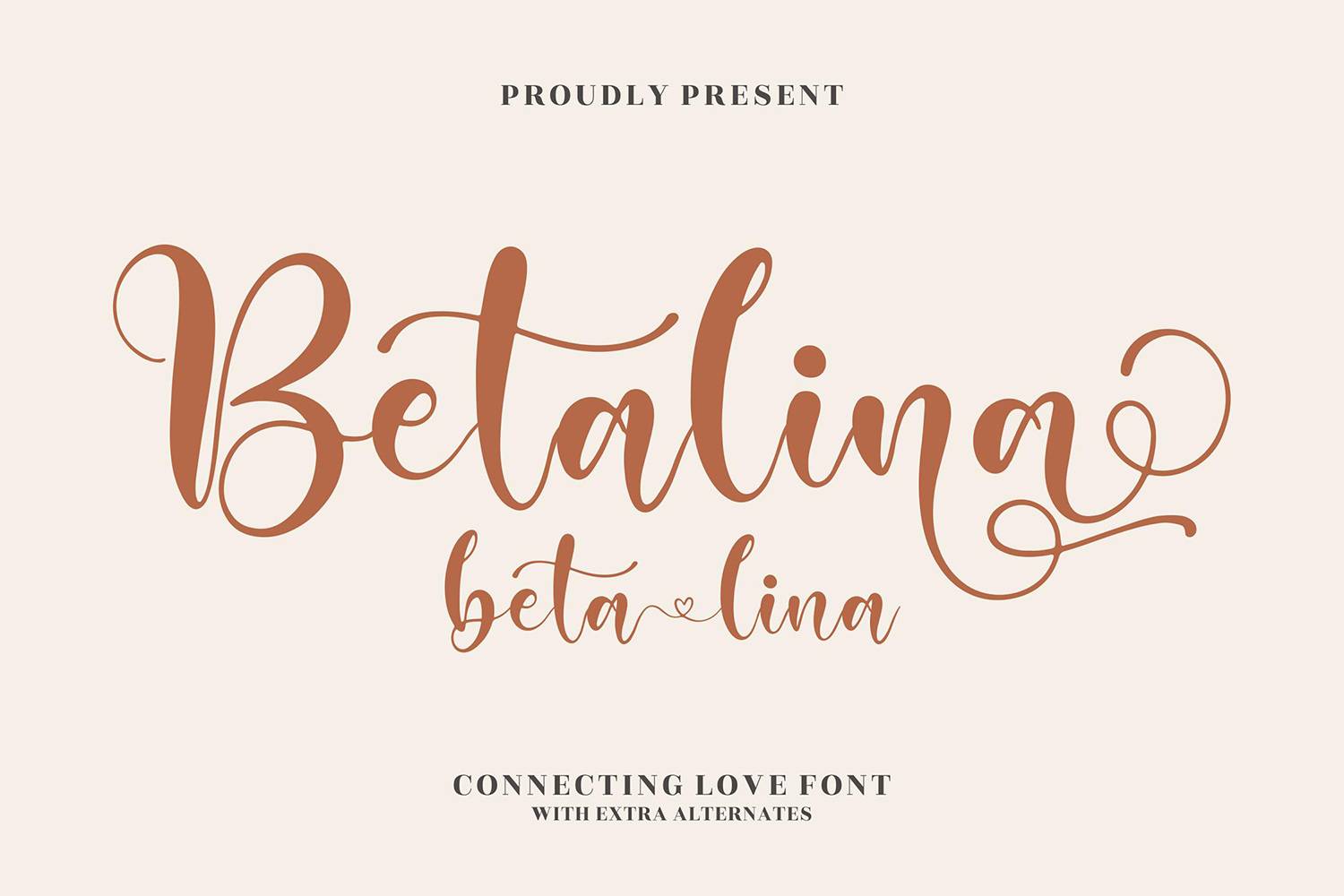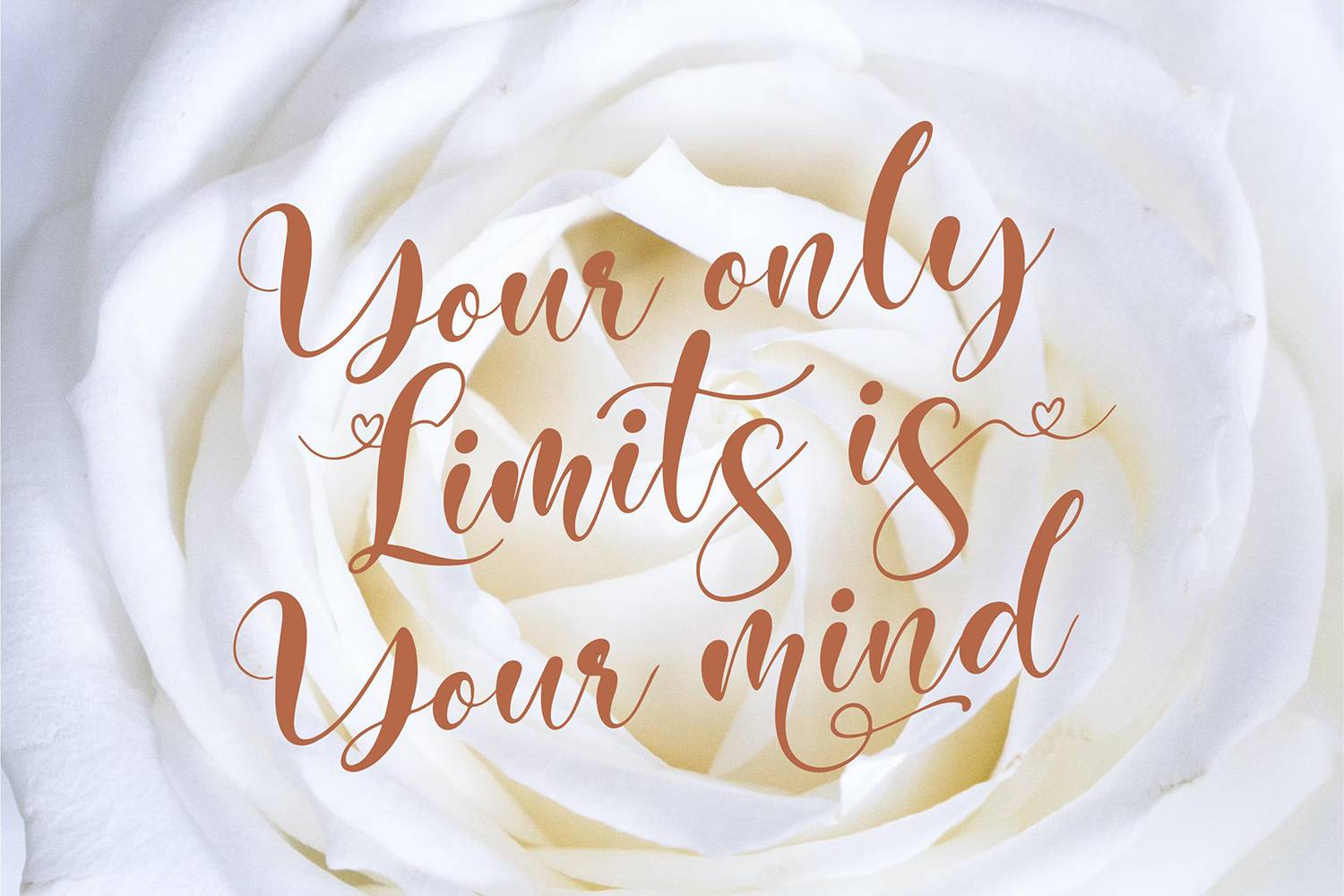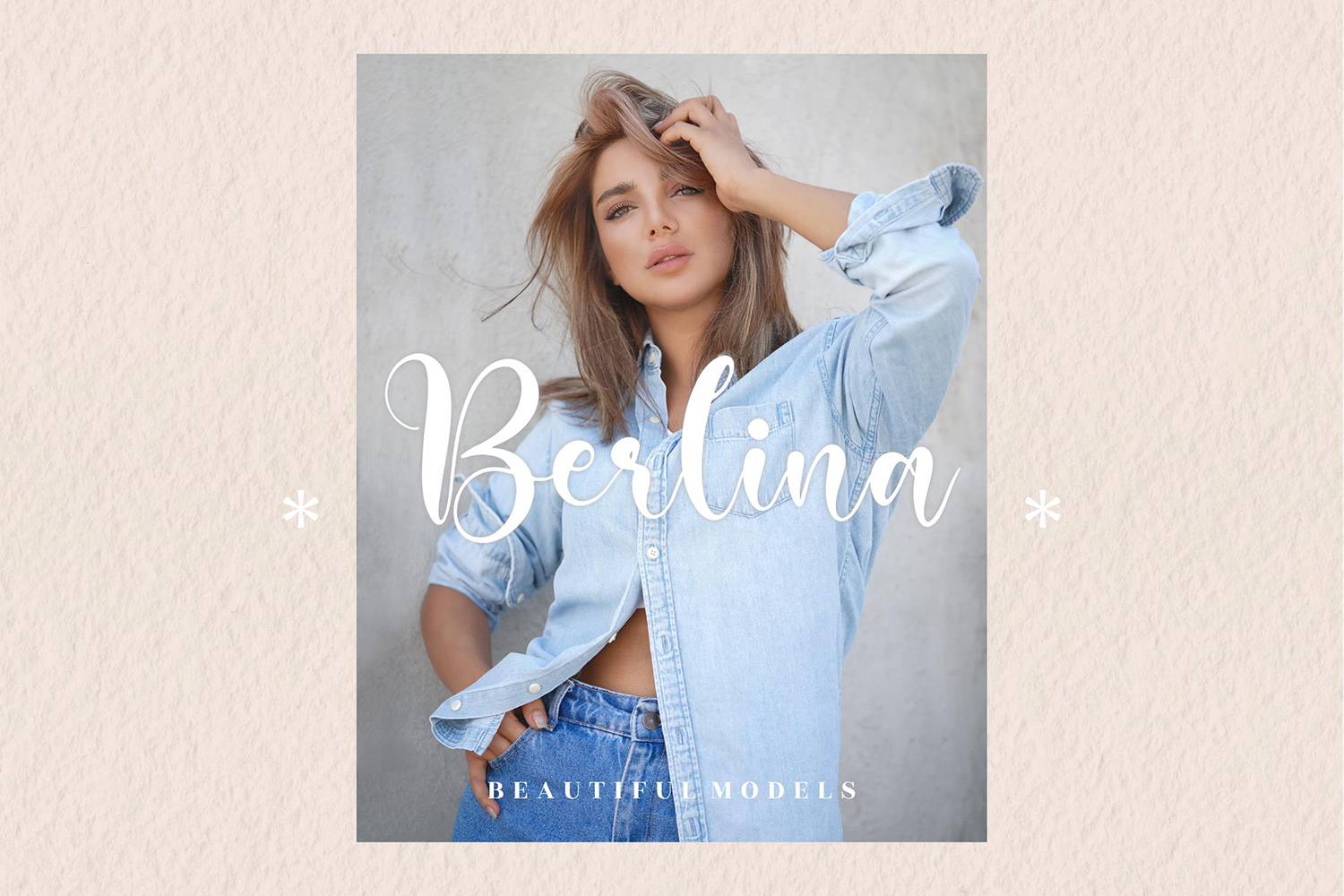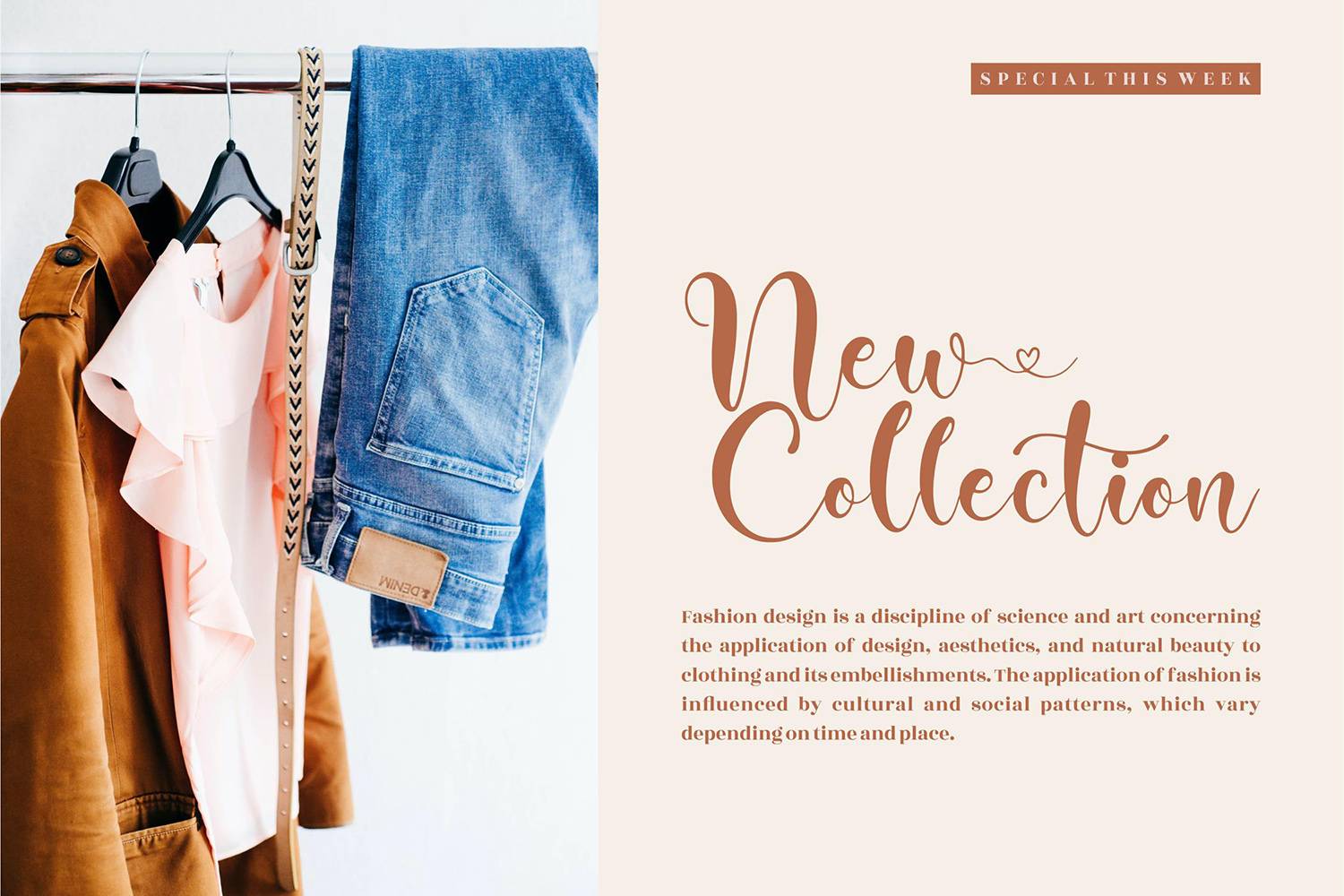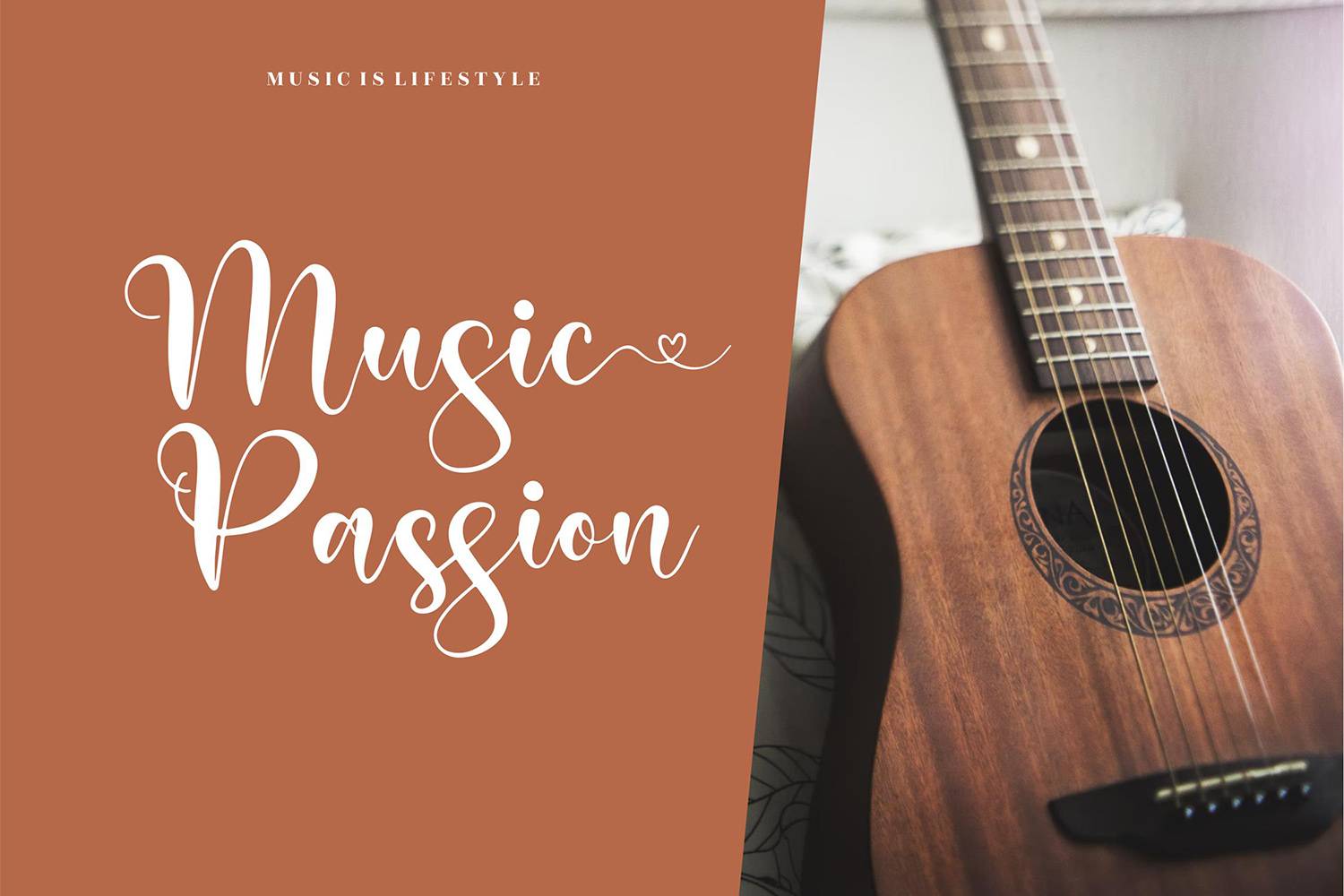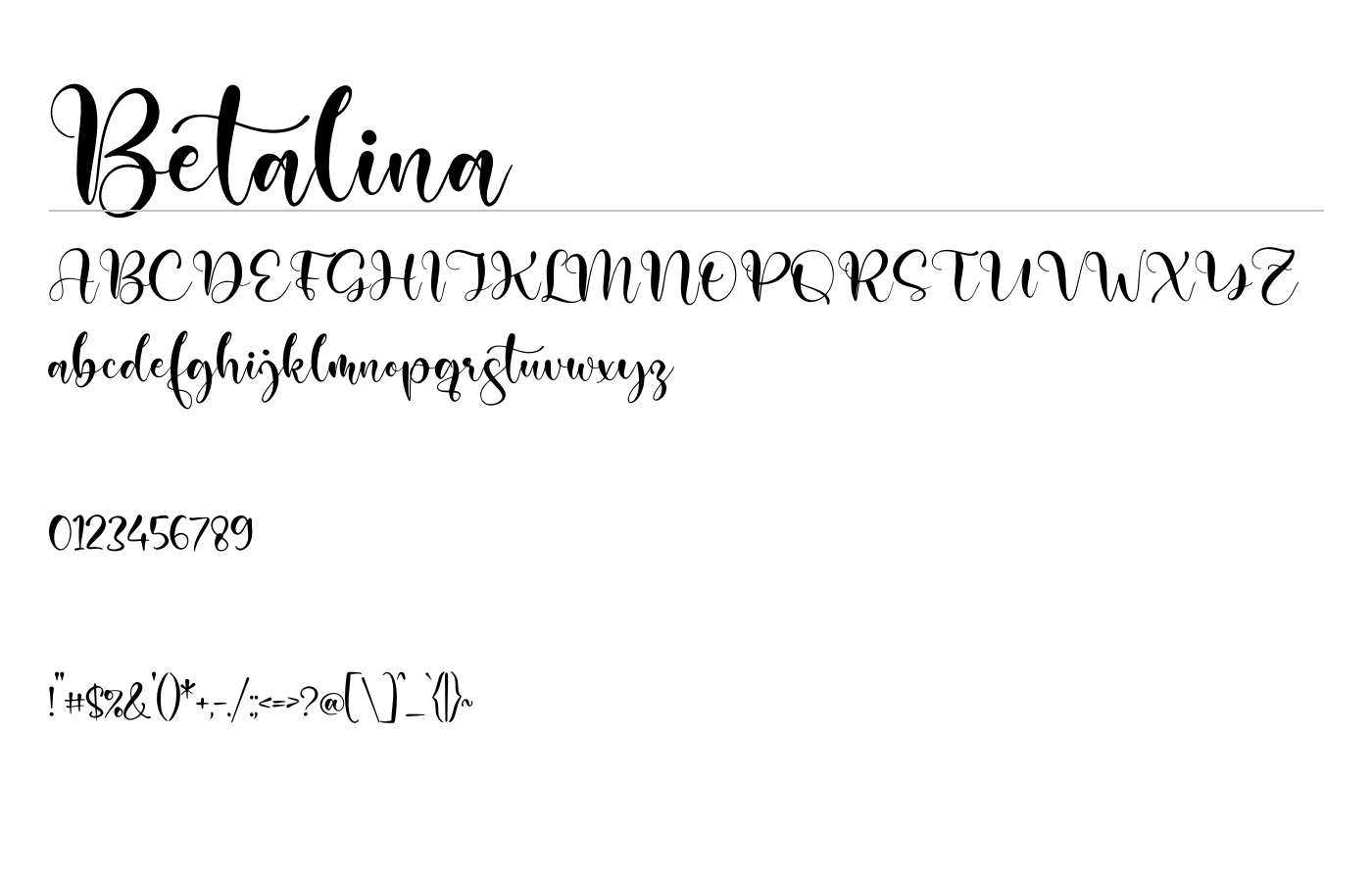
Betalina is an elegant script font featuring flowing, calligraphic letterforms with a warm, personal touch. Its graceful swashes and high contrast strokes create a stylish and sophisticated look, making it perfect for wedding invitations, branding, and feminine design projects that seek a refined yet approachable feel. This font shines best in headlines and decorative uses where a charming, handcrafted vibe is desired.
Betalina Font